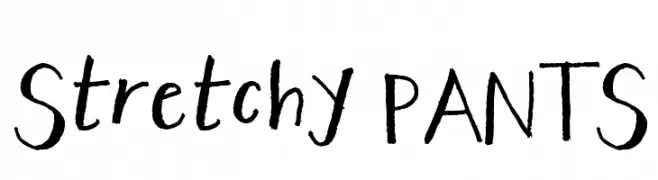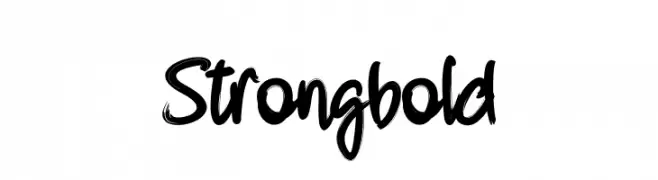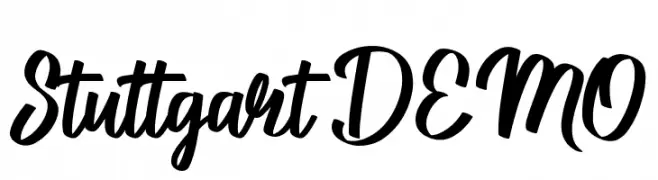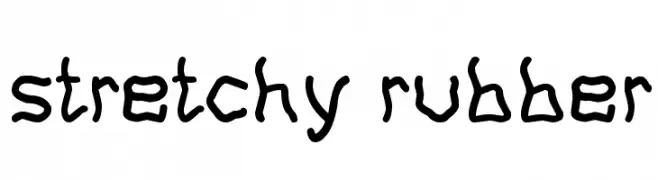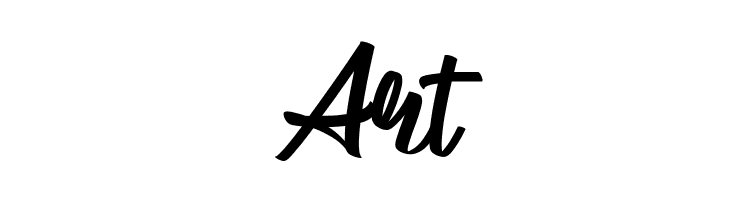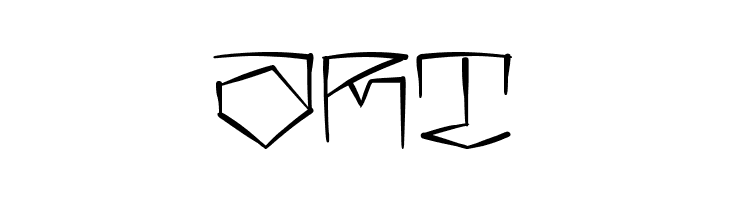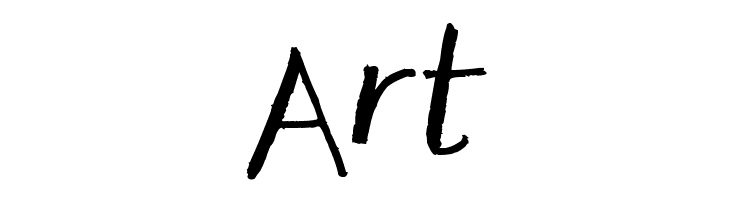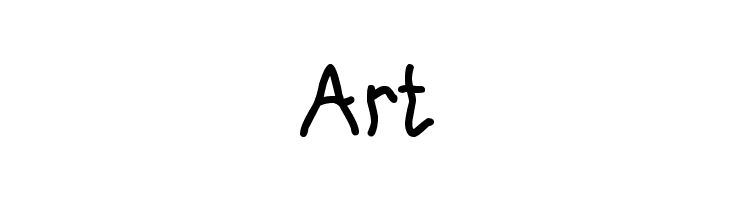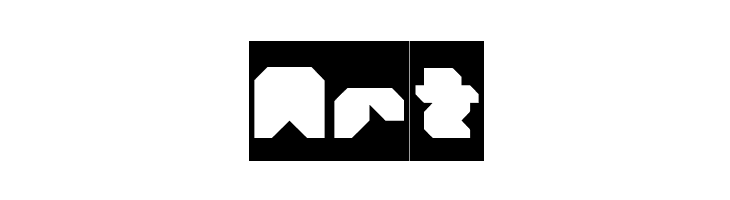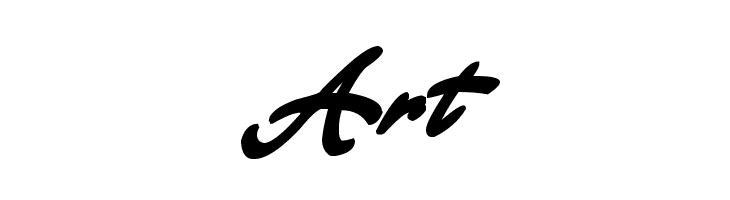
• STRANGER-Inverse
A bold, geometric font with sharp angles and a modern aesthetic.
• Strawobbly
A whimsical, hand-drawn font with uneven, wobbly strokes.
• Strawobbly
A whimsical, hand-drawn font with wobbly, irregular lines.
• Street College
A bold, outlined collegiate-style font with a strong, impactful presence.
• Street Life
A bold, angular font with a graffiti-inspired, urban aesthetic.
• Stretchy PANTS
A playful, handwritten font with uneven strokes and a casual style.
• stretchy rubber
A playful, hand-drawn font with a stretchy, rubber-like appearance.
• Strong Smooth Script
A bold, smooth script font with flowing curves and strong strokes.
• Strongbold
• Stuttgart DEMO